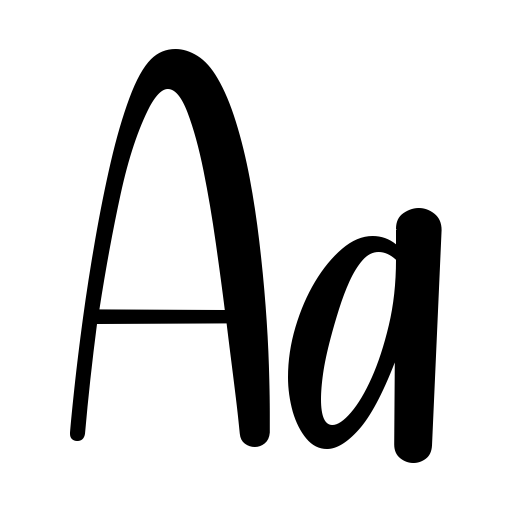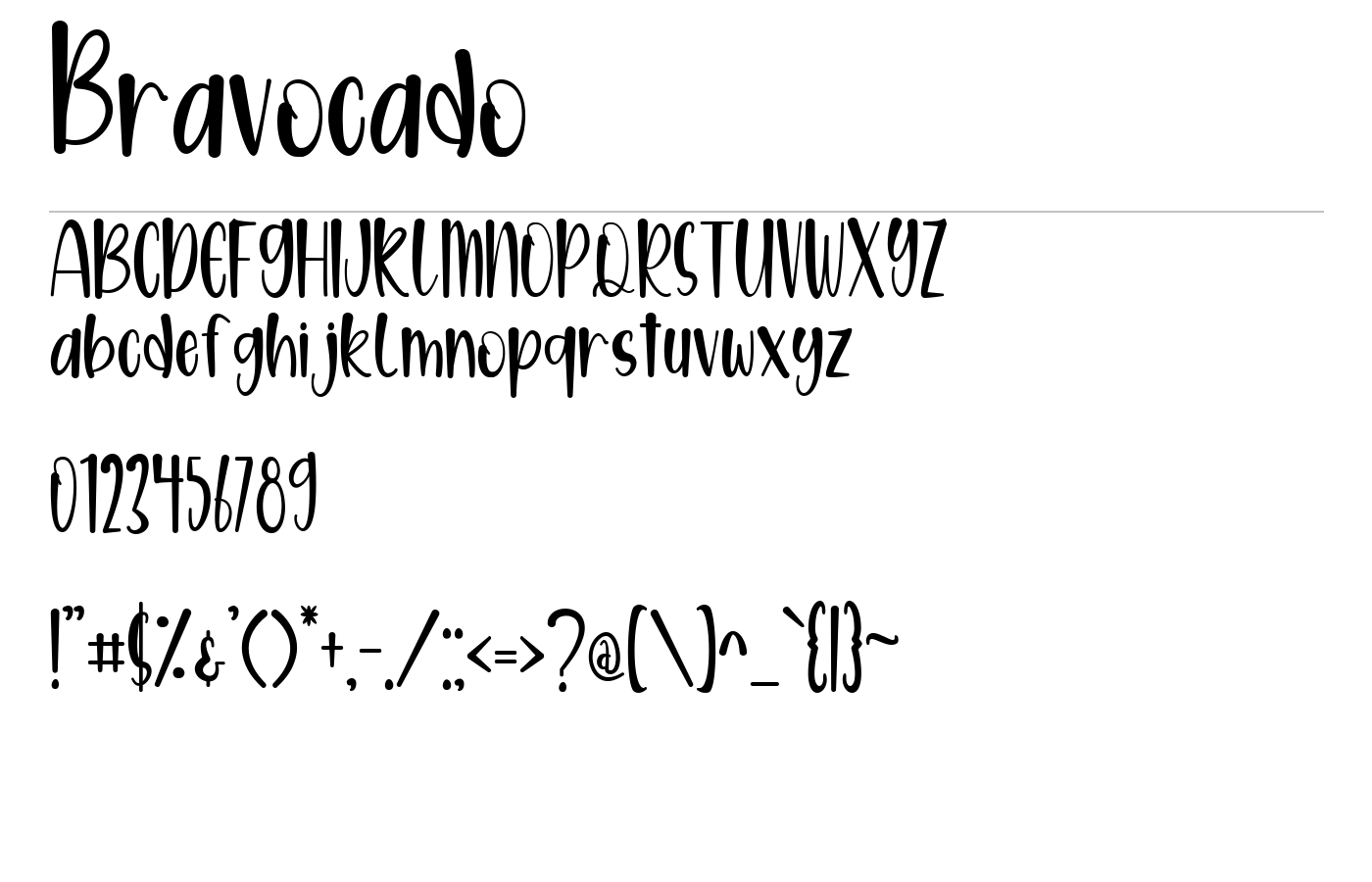
Bravocado is a playful, tall handwritten sans serif font with a lively and casual character. Its thin, uneven strokes and quirky letterforms give it a friendly, approachable feel, making it ideal for creative projects, informal branding, and eye-catching headlines. This font works well where personality and charm are needed, such as in invitations, posters, or social media graphics.
Bravocado Font
About Bravocado Font
| Font family | Bravocado Font |
| Designer | Arief Tri Sulistiyono |